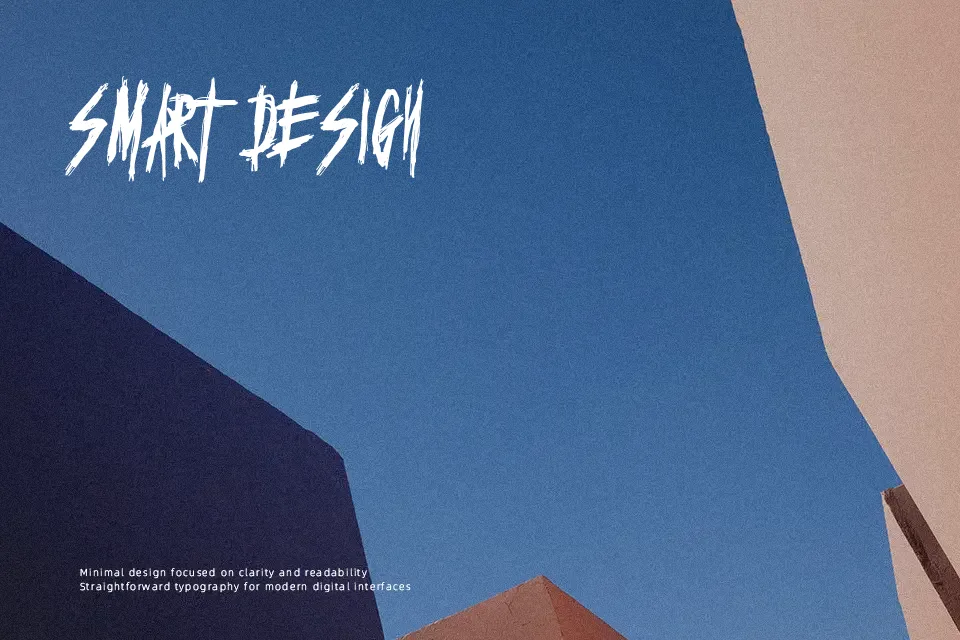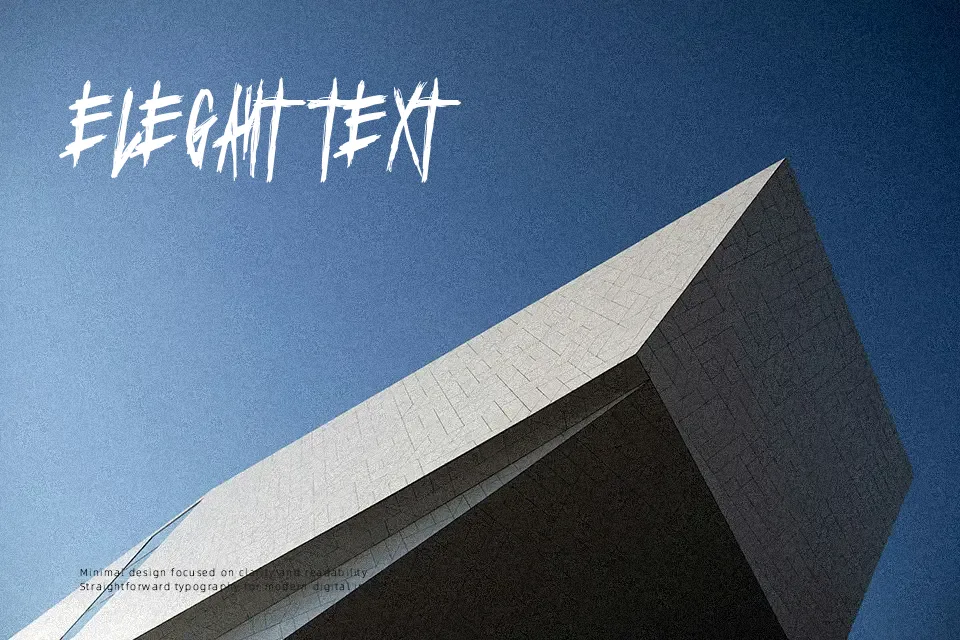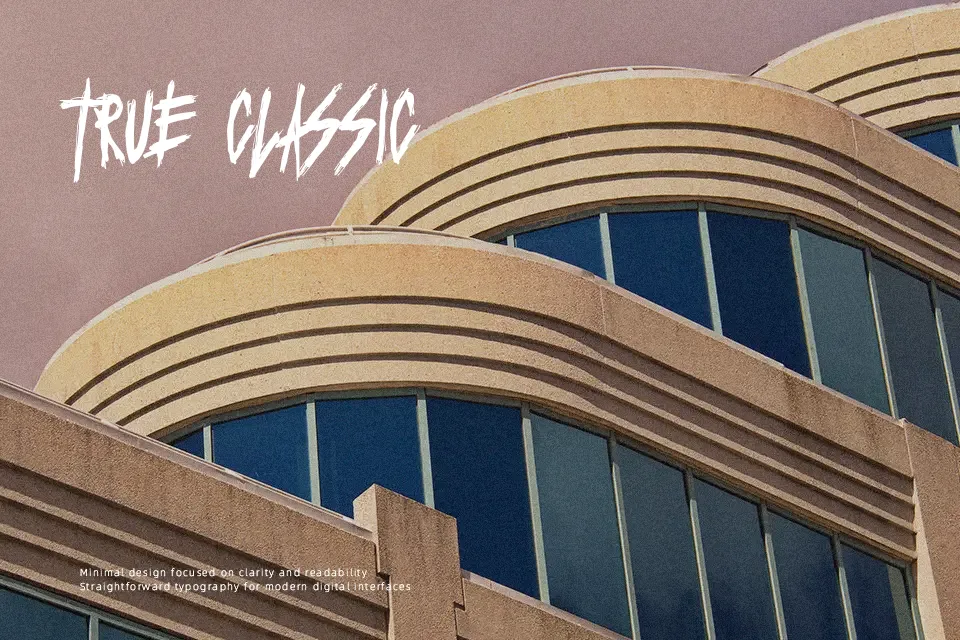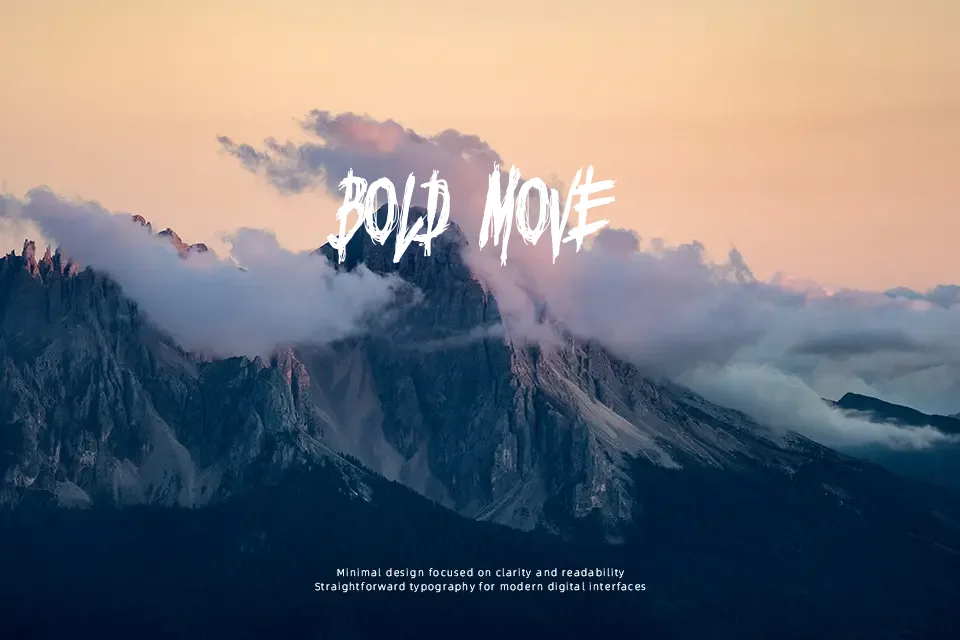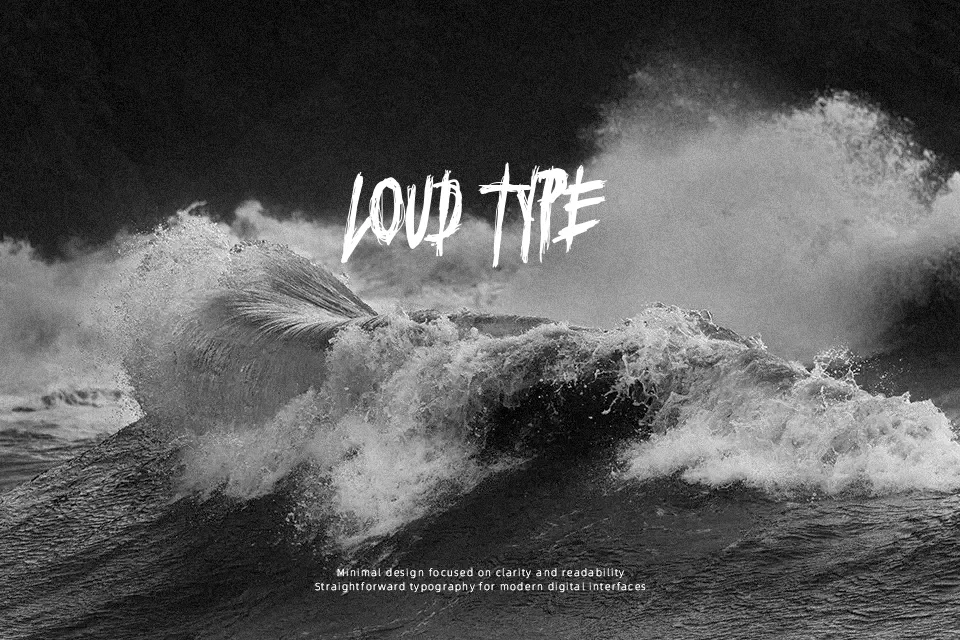
Black Terror Font
Black Terror by Woodcutter is an intensely distressed display typeface that thrives on chaotic energy. The letterforms feature an extra-condensed structure combined with heavily textured strokes, giving the impression of frantic, scratchy handwriting. This gritty aesthetic immediately establishes a dark, unsettling atmosphere. It performs exceptionally well when injecting raw emotion into a layout. Consider applying it to heavy metal merchandise, indie horror game title screens, or underground punk event flyers. The damaged edges add genuine character to large headlines. Conversely, the dense grunge texture makes it unreadable at small sizes, meaning you should avoid applying it to body paragraphs, formal corporate materials, or clean web interfaces where strict legibility is required.
Underground music merchandise and album art
Title screens for thriller or survival games
Halloween event posters and eerie flyers
High-impact, grungy editorial headlines
Extended reading paragraphs or small print
Formal corporate branding and identity
Minimalist luxury fashion campaigns
Perfect for gaming, halloween, and headline, with a dark and condensed style.